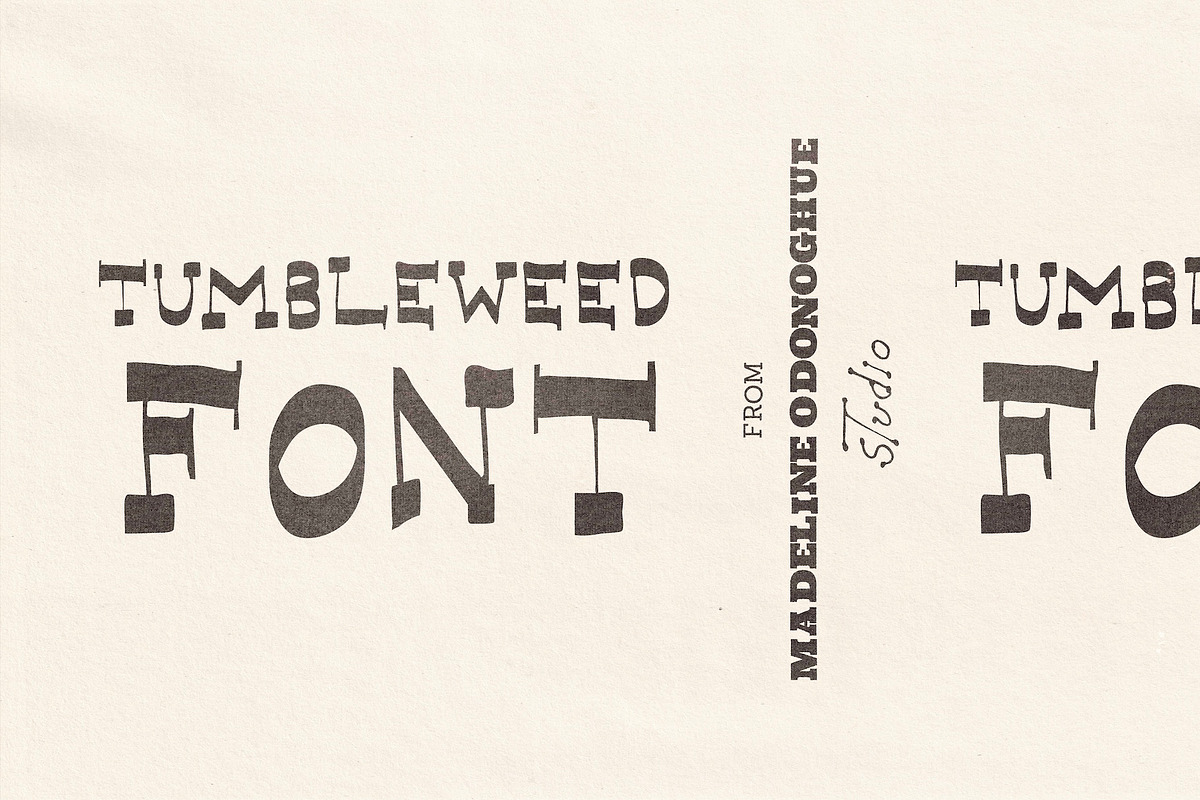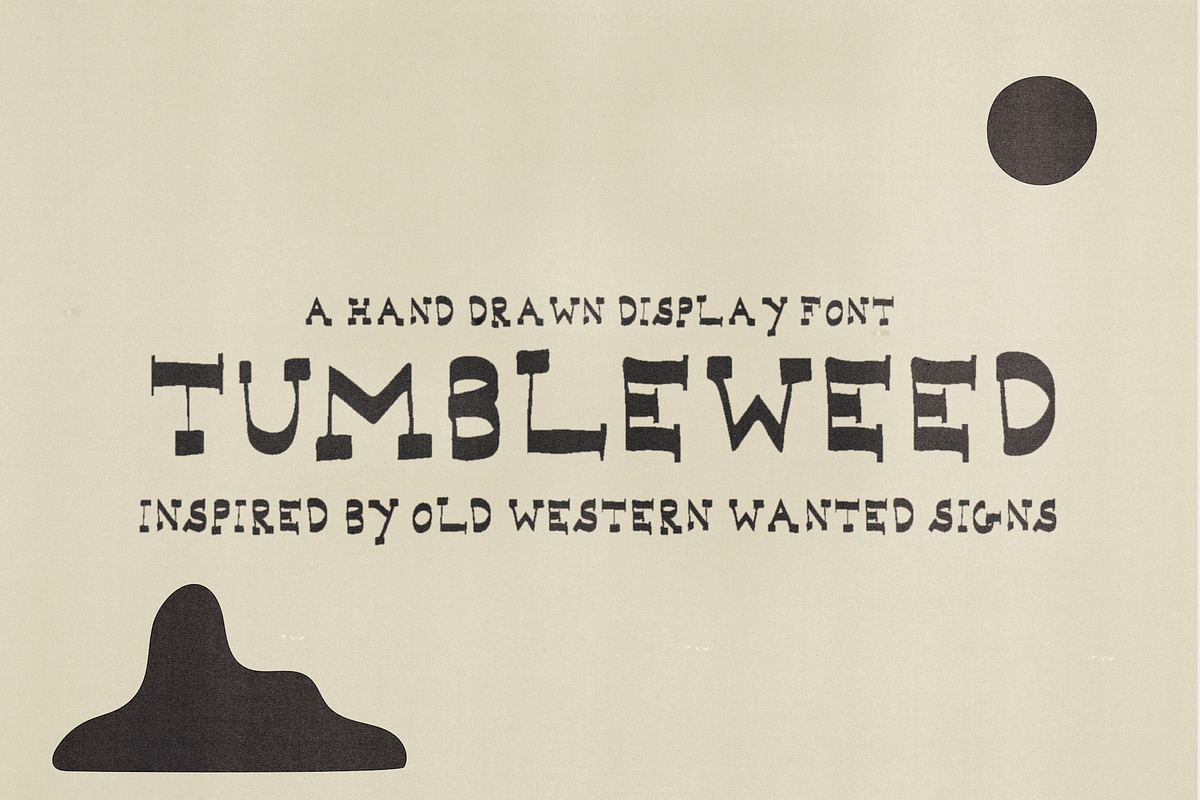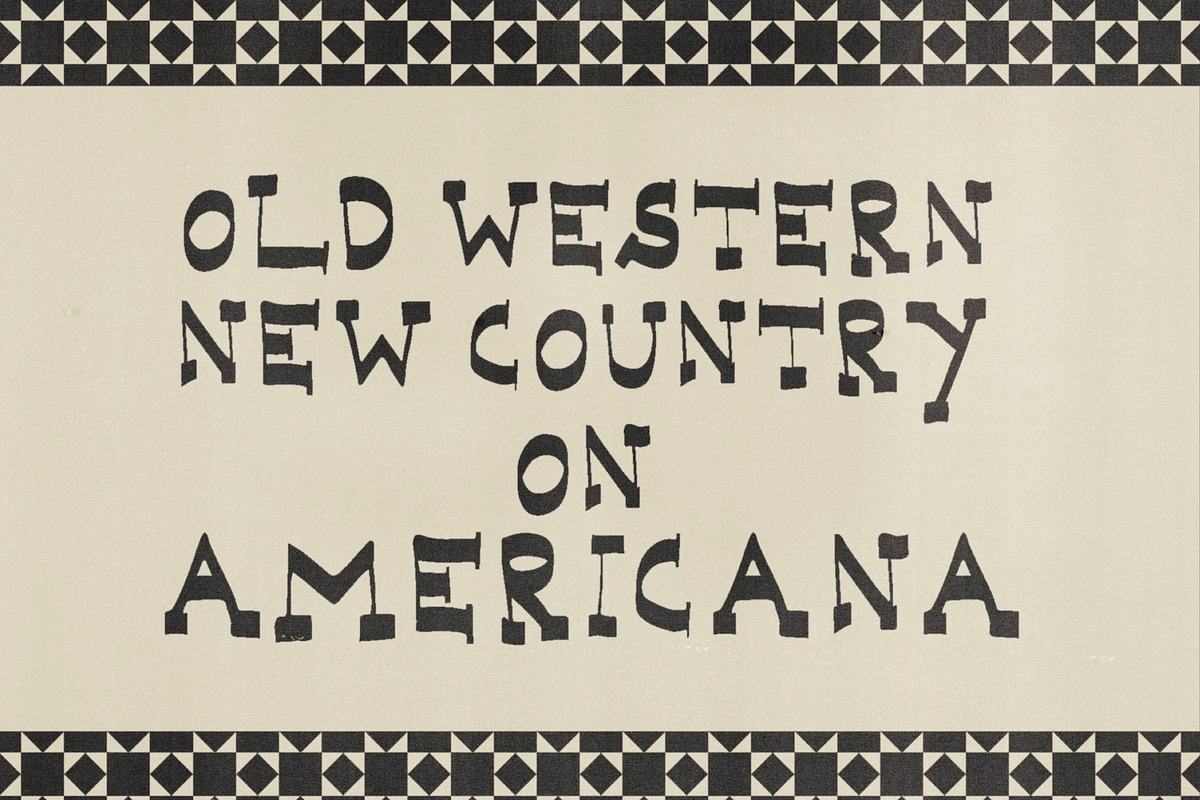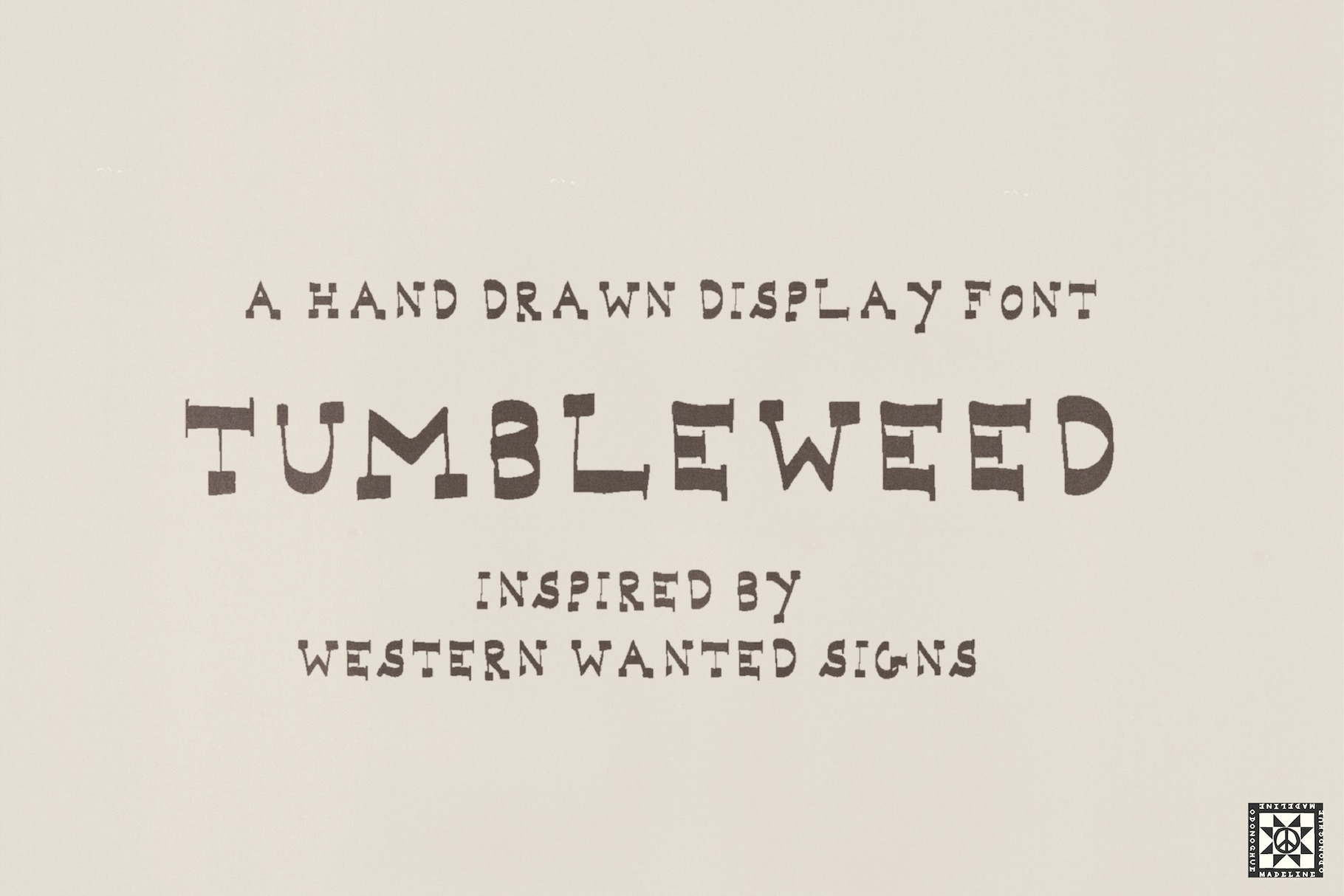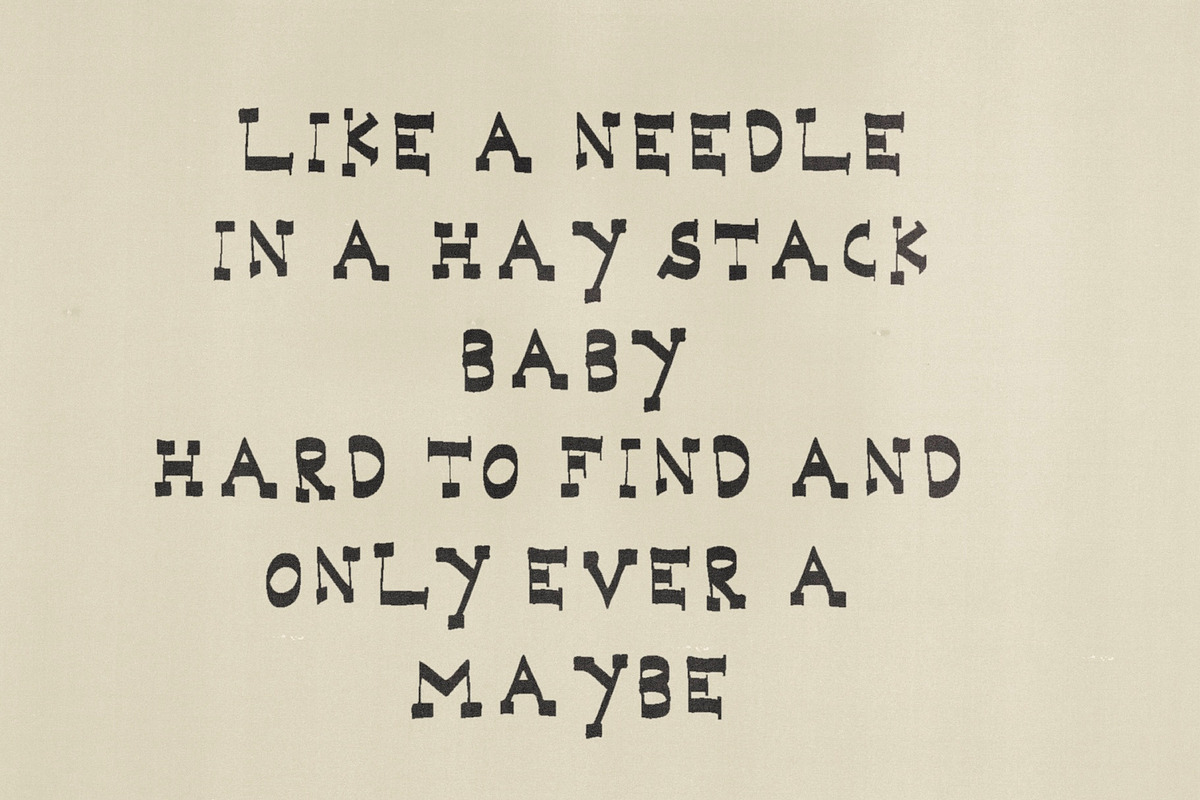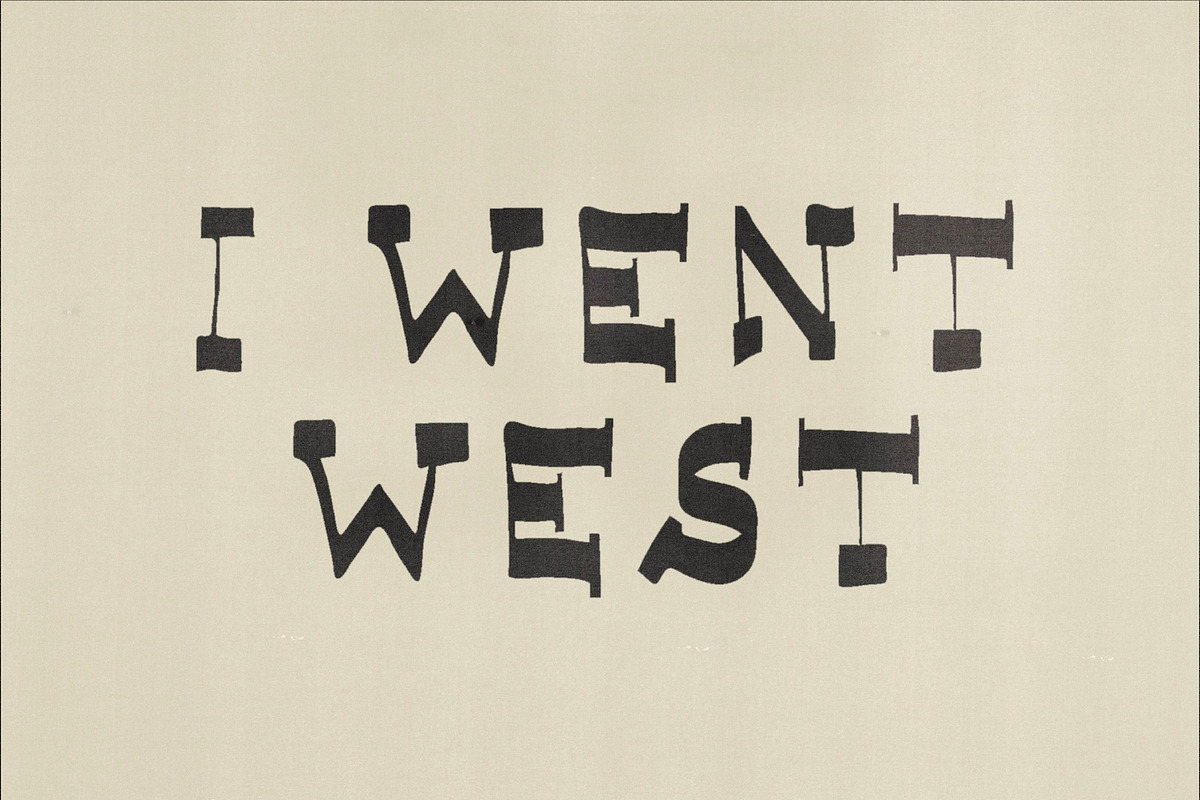
Tumbleweed Hand Drawn Western Font
Tumbleweed is a hand-drawn display typeface inspired by old-time country music, Western radio, weathered signage and the imperfect lettering of vintage American print ephemera.
Drawn entirely by hand with a marker, Tumbleweed has an unusual musical rhythm. Thick and thin strokes sit alongside unexpected proportions, wandering curves and irregular letterforms, creating a sense of movement that feels almost like a melody. Each character has its own personality, but together they find a wonderfully loose and natural harmony.
There's something nostalgic about Tumbleweed — old radio broadcasts, mountain ballads, country record sleeves, handwritten notices, roadside signs and forgotten dance halls. The lettering feels familiar but difficult to place exactly, somewhere between early wood type, handmade sign painting and the spirited typography of American folk music.
Rather than recreating a traditional Western typeface, Tumbleweed embraces the imperfections of lettering made by hand. Uneven weights, unexpected shapes and slightly awkward details are all part of its character. It's expressive, rhythmic and deliberately unpolished.
Made for music posters, record sleeves, independent branding, packaging and expressive graphic design, Tumbleweed brings a little movement, warmth and old-time character to contemporary work.
Country, folk, blues and Americana music posters
Album artwork, record sleeves and vintage radio graphics
Independent branding, logos and hand-crafted signage
Packaging, labels and small-batch product design
Editorial layouts, exhibition graphics and experimental typography
Vintage-inspired designs with an expressive, handmade character
Tumbleweed is a font with its own rhythm — imperfect, spirited and full of character.
Please note: this is an experimental display typeface intended primarily for headlines, titles, logos and short pieces of expressive typography rather than long passages of text.